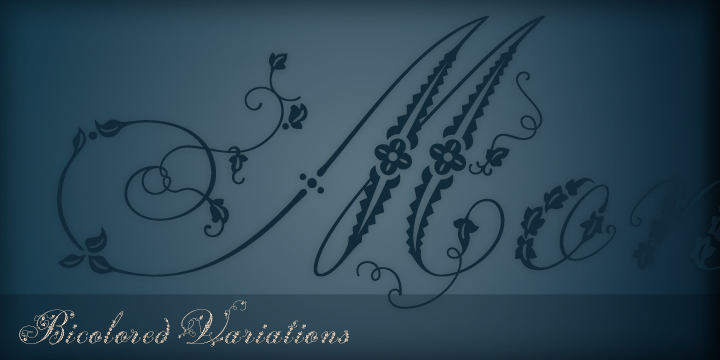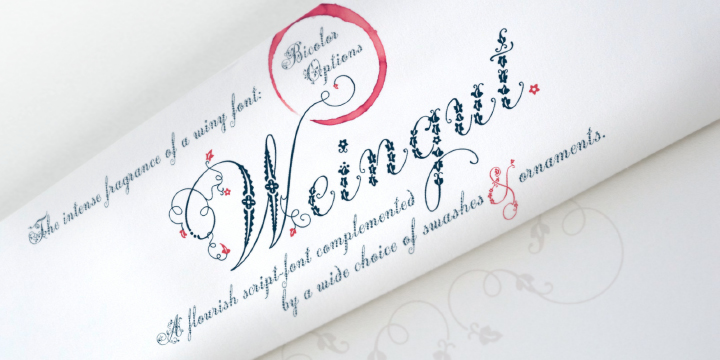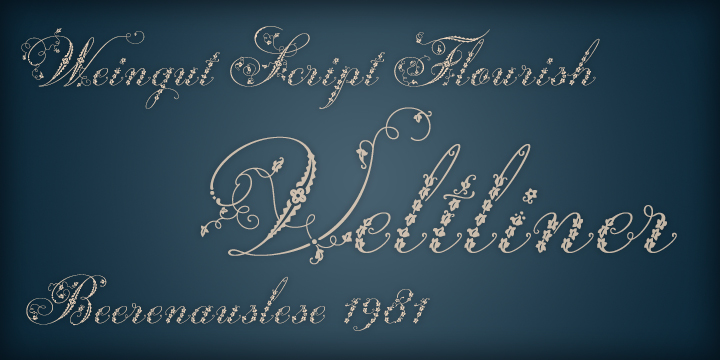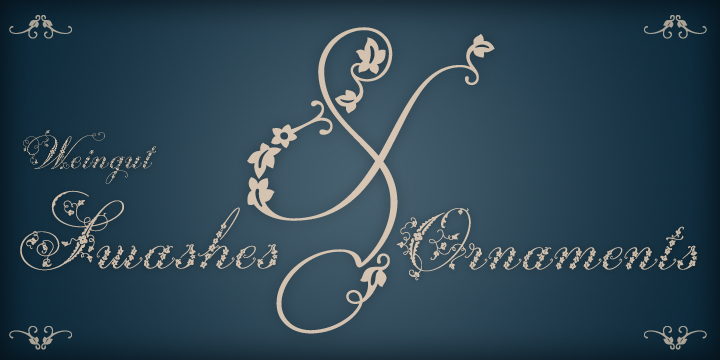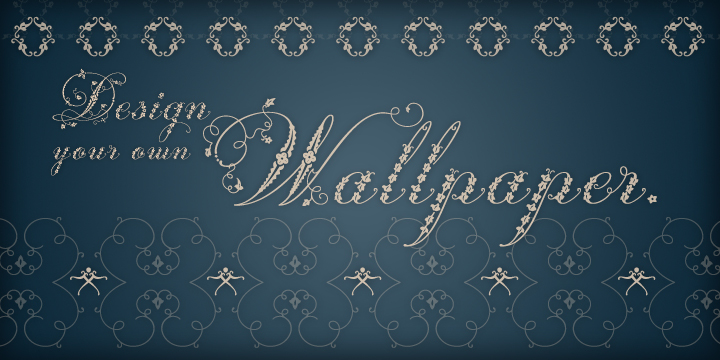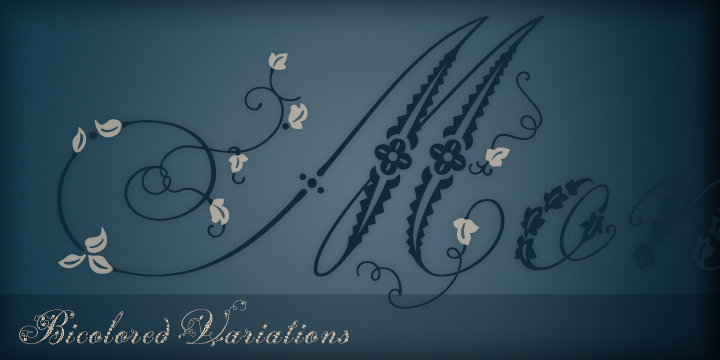
Weingut Script Flourish is a decorative display font with high contrasts, perfectly drawn to the tiniest details. The font is trimmed to fairly large font sizes and is highly suitable for chapter titles or book jackets as well as Headlines, Invitations and wine labels :), although also impressing with an astounding legibility in small typesettings. Inspired by the hand drawn Blätterschrift from the 19th century Mettenleiter’s Schriftenmagazin, its basic structure is related to the English Script. The creative process started in summer 2009 and after 600 hours of work, over a 2 year period, Weingut now unfolds to reveal all its charms.
Design with bicoloured capitals
In Weingut Script and Weingut Flourish, leaves and letters are available separately. You can stack them and apply different colours to the foreground and background.
Decoration and patterns
Weingut Swashes and Ornaments offers extra decorative elements in a separate font. Leaves, flourishes and borders available on their own or merged to ornaments. The Weingut Family – noticable bouquet, beautiful structure with full fruit and a long finish.